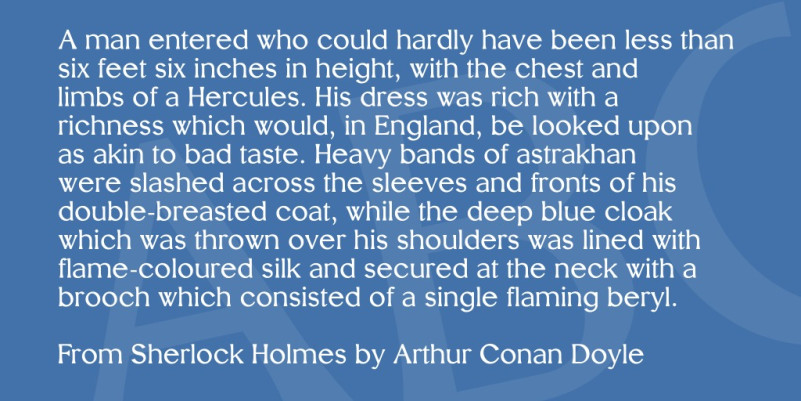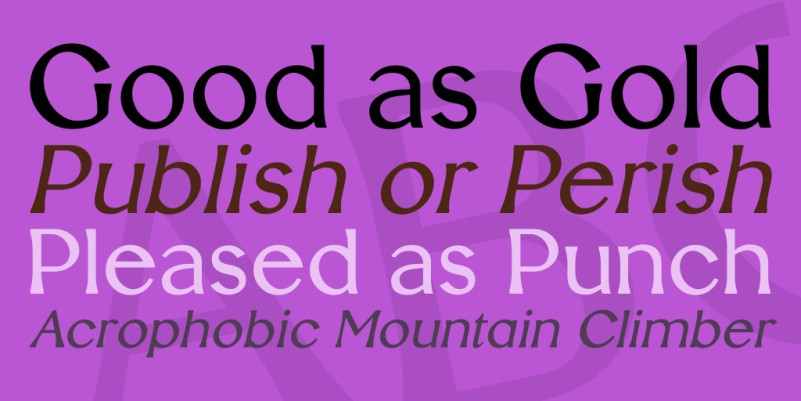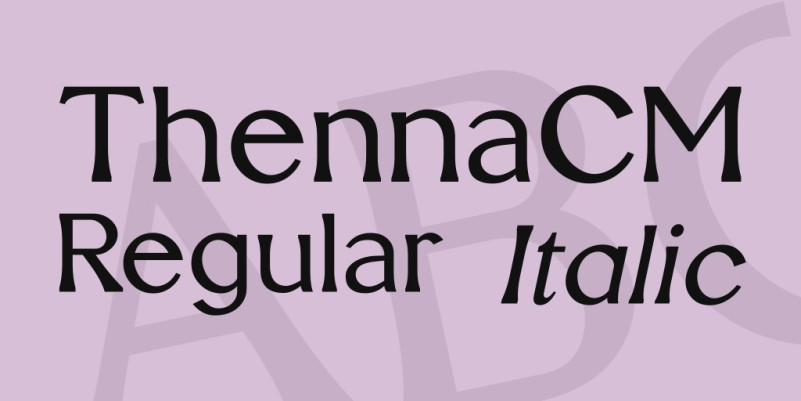
ThennaCM Font
ThennaCM Serif Font, this font is the perfect way to add style and flair to your designs! The unique, sophisticated shapes and amazing mix of shapes in this font will automatically add a touch of class and sophistication. ideal for use in greeting cards, posters, product packaging, or just to add a little flair to your designs. Its simplicity will make it easy to read and you can use it anywhere you like. Grab your copy now and start making the most of it today!